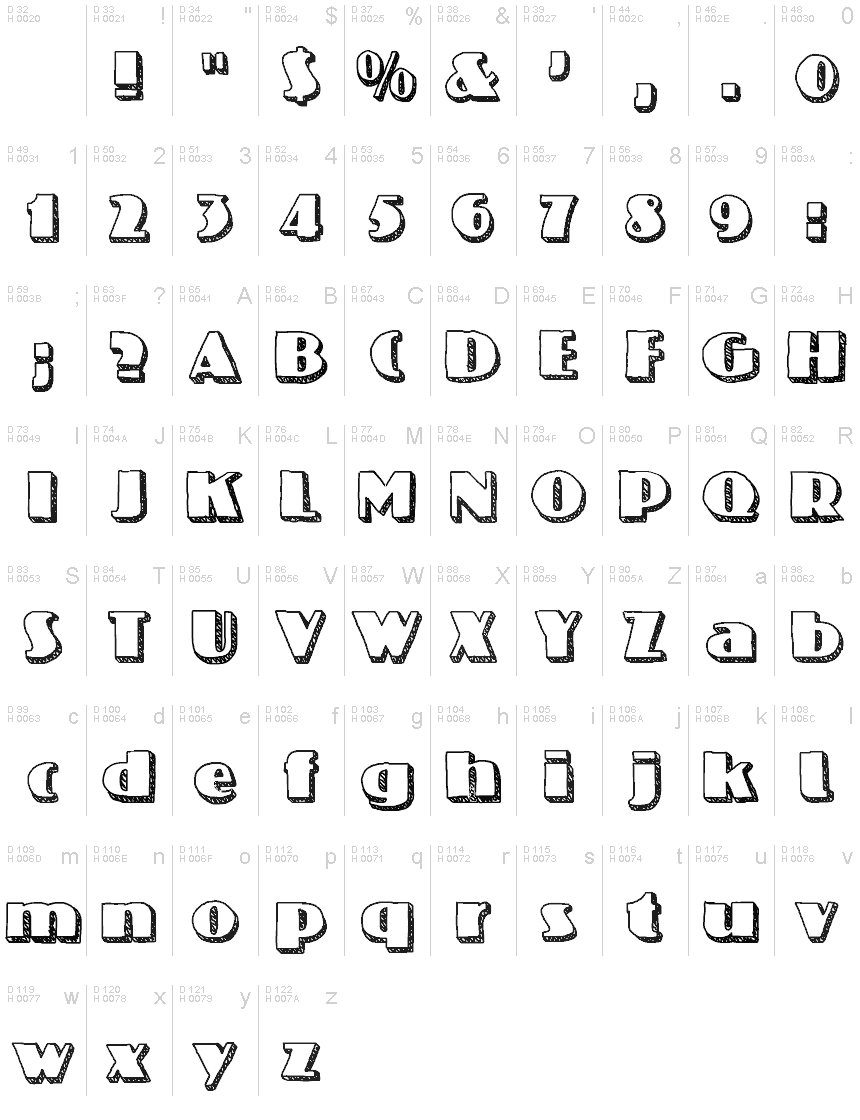
NineteenOhFive
"Nineteen Oh Five" is a bold, three-dimensional display font that exudes an air of vintage charm. Designed by Jake Luedecke, this font boasts a distinctive visual style, with its thick, textured strokes and subtle imperfections creating a captivating, handcrafted aesthetic. The 3D effect adds depth and dimension, making the typography truly stand out.
This font's versatility shines through, lending itself well to a range of design applications, from eye-catching headlines and logos to retro-inspired branding and packaging. Its bold, attention-grabbing presence makes it an ideal choice for designers seeking to make a bold, memorable statement. Nineteen Oh Five is a font that celebrates the timeless allure of vintage design, offering a unique and impactful typographic solution for a variety of creative projects.